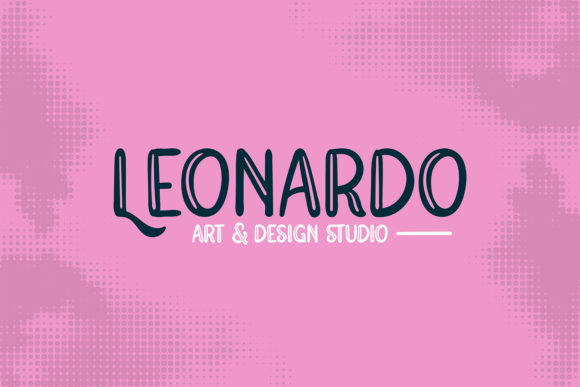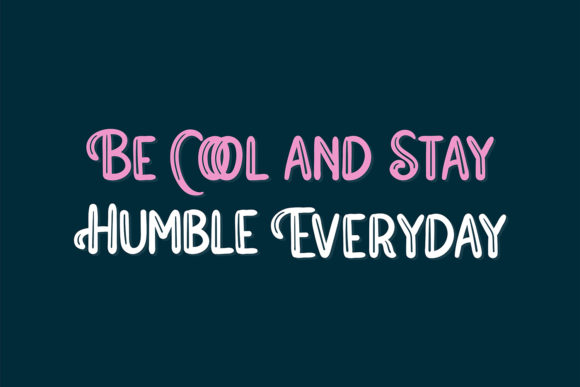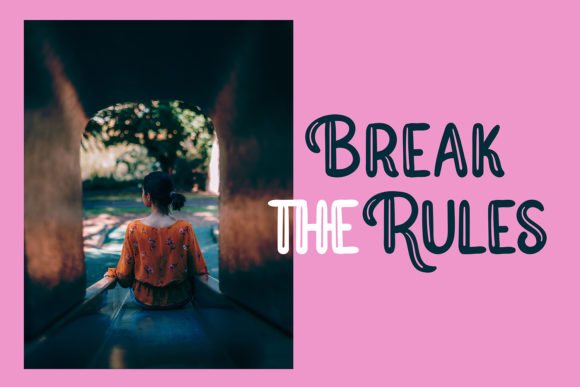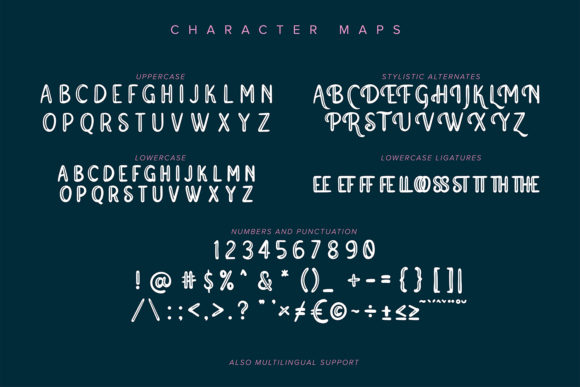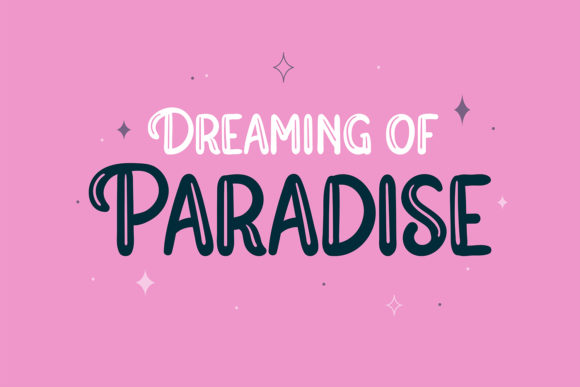
Agnostic Mirossa Font: Elevate Your Designs with Modern Elegance
In the world of typography, fonts play a crucial role in conveying the tone and personality of a design. For designers and crafters, finding the perfect font can be a daunting task. However, if you’re looking for a modern sans serif font that can elevate your designs to the highest level, look no further than Agnostic Mirossa. In this article, we’ll explore the features and benefits of Agnostic Mirossa, and why it’s becoming a favorite among designers.
What is Agnostic Mirossa?
Agnostic Mirossa is a modern sans serif font, carefully handcrafted to provide a clean and elegant look to a wide range of design projects. Its sleek lines, precise curves, and balanced proportions make it an ideal choice for designers seeking a sophisticated font. Whether you’re working on branding, headings, wedding designs, invitations, signatures, logos, labels, or any other project, Agnostic Mirossa is sure to impress.
Key Features of Agnostic Mirossa
- Modern Sans Serif Design: Agnostic Mirossa boasts a contemporary sans serif design that exudes elegance and sophistication.
- Handcrafted with Precision: Each letterform has been carefully crafted to ensure a high level of precision and attention to detail.
- Versatile: Agnostic Mirossa can be used for a wide range of design projects, from branding and headings to wedding designs and labels.
- Elegant and Clean: The font features clean lines, precise curves, and balanced proportions, making it perfect for designs that require a touch of sophistication.
Benefits of Using Agnostic Mirossa
So, why should you choose Agnostic Mirossa for your design projects? Here are just a few benefits:
- Enhance Your Brand’s Identity: Agnostic Mirossa can help you create a strong brand identity with its unique and recognizable style.
- Elevate Your Designs: The font’s modern and elegant design will instantly elevate your designs, making them more visually appealing.
- Save Time: With Agnostic Mirossa, you can create professional-looking designs quickly and efficiently, saving you time and effort.
- Stand Out from the Crowd: The font’s distinctive style will help your designs stand out from the competition, making them more memorable.
Who Can Benefit from Agnostic Mirossa?
Agnostic Mirossa is an excellent choice for a variety of designers and crafters, including:
- Graphic Designers: Agnostic Mirossa is perfect for graphic designers working on branding, logos, and marketing materials.
- Wedding Designers: The font’s elegant design makes it ideal for wedding designs, invitations, and stationery.
- Stationery Designers: Agnostic Mirossa is suitable for designing stationery, such as business cards, letterheads, and envelopes.
- Digital Designers: The font can be used for digital designs, including website headers, social media graphics, and more.
In conclusion, Agnostic Mirossa is a modern sans serif font that offers a unique blend of elegance, sophistication, and versatility. Its handcrafted design, precise curves, and balanced proportions make it an excellent choice for a wide range of design projects. Whether you’re a graphic designer, wedding designer, or digital designer, Agnostic Mirossa is sure to become a favorite in your font collection. With its ability to elevate your designs and enhance your brand’s identity, Agnostic Mirossa is an investment worth considering.